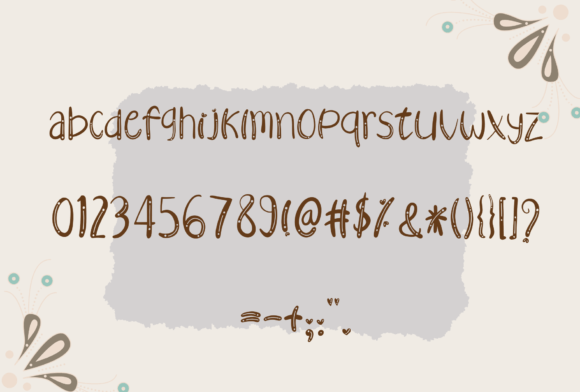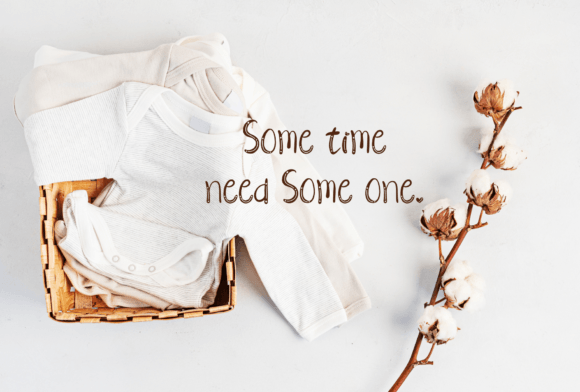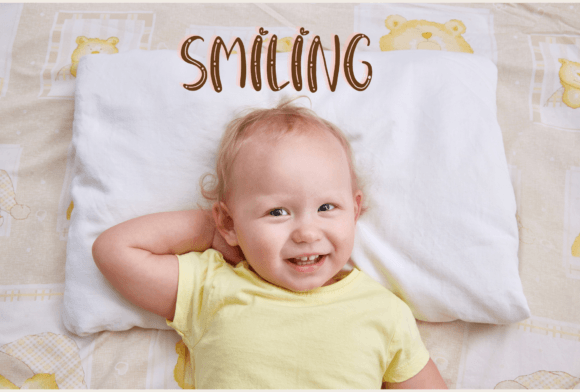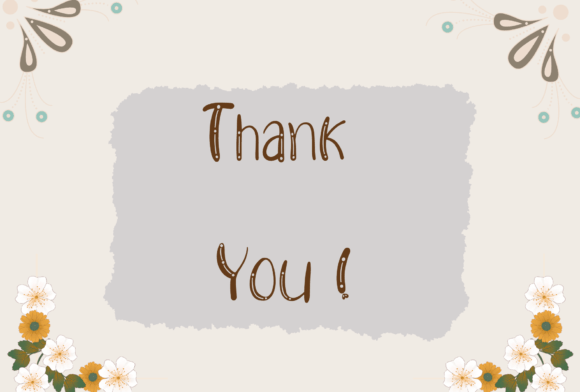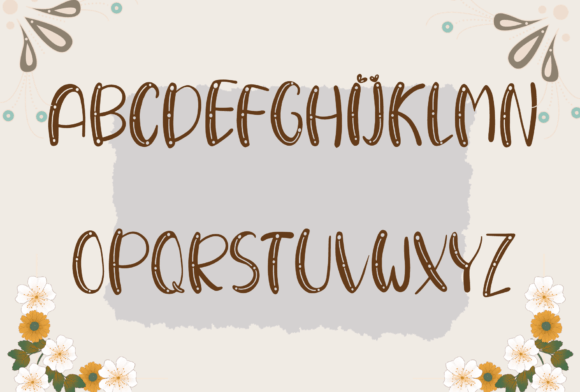
Discover the Joy of Creative Typography with Home My Me Font
Have you ever found yourself stuck in a design rut, searching for the perfect font to bring your project to life? I know I have. There’s nothing quite like the thrill of stumbling upon a font that perfectly captures the essence of your vision. For me, that font is Home My Me, a delightful decorative font that’s as charming as it is versatile.
Home My Me Font is a simple yet effective font designed specifically for educational purposes, but its appeal extends far beyond the classroom. Its playful style makes it a perfect fit for presentations, advertising, illustrations, and any project that requires a touch of creativity. Whether you’re a seasoned designer or a DIY enthusiast, Home My Me Font is a valuable addition to your toolkit.
Home My Me Font Key Features
- Font Family: Home My Me Font is a unique, hand-drawn font family with multiple styles and weights.
- Character Set: Includes a wide range of characters, including Latin, Cyrillic, and Greek alphabets, as well as punctuation and symbols.
- Unique Characteristics: Features a distinctive, hand-drawn style with subtle imperfections and variations in line width and thickness, giving it a personal and organic feel.
Designer Review: Home My Me Font
Overall, I think “Home My Me Font” has some great qualities that make it suitable for certain design projects. ✨ The font’s warm and inviting personality makes it perfect for creating cozy and welcoming atmospheres. The rounded shapes and gentle curves also make it suitable for use in children’s books, websites, and other materials aimed at young audiences.
One of the things I appreciate about this font is its legibility. It’s easy to read, even at smaller sizes, which makes it a great choice for body text. The font also has a nice range of weights and styles, making it versatile and easy to customize.
However, there are some limitations to consider: ⚠️ The font may not be suitable for more formal or professional projects, as it can come across as a bit too playful or whimsical. Additionally, the font’s rounded shapes can make it difficult to read at very large sizes, as the text can become too soft and blurry.
- Use it for projects that require a warm and inviting atmosphere
- Avoid using it for formal or professional projects
- Be mindful of the font size, as it can become difficult to read at very large sizes
– Using it for headings and titles to add a touch of elegance.
– Experimenting with different font sizes and styles to create visual interest.
– Pairing it with other fonts to create a unique and eye-catching combination.
– Using it for body text to create a clean and modern look.